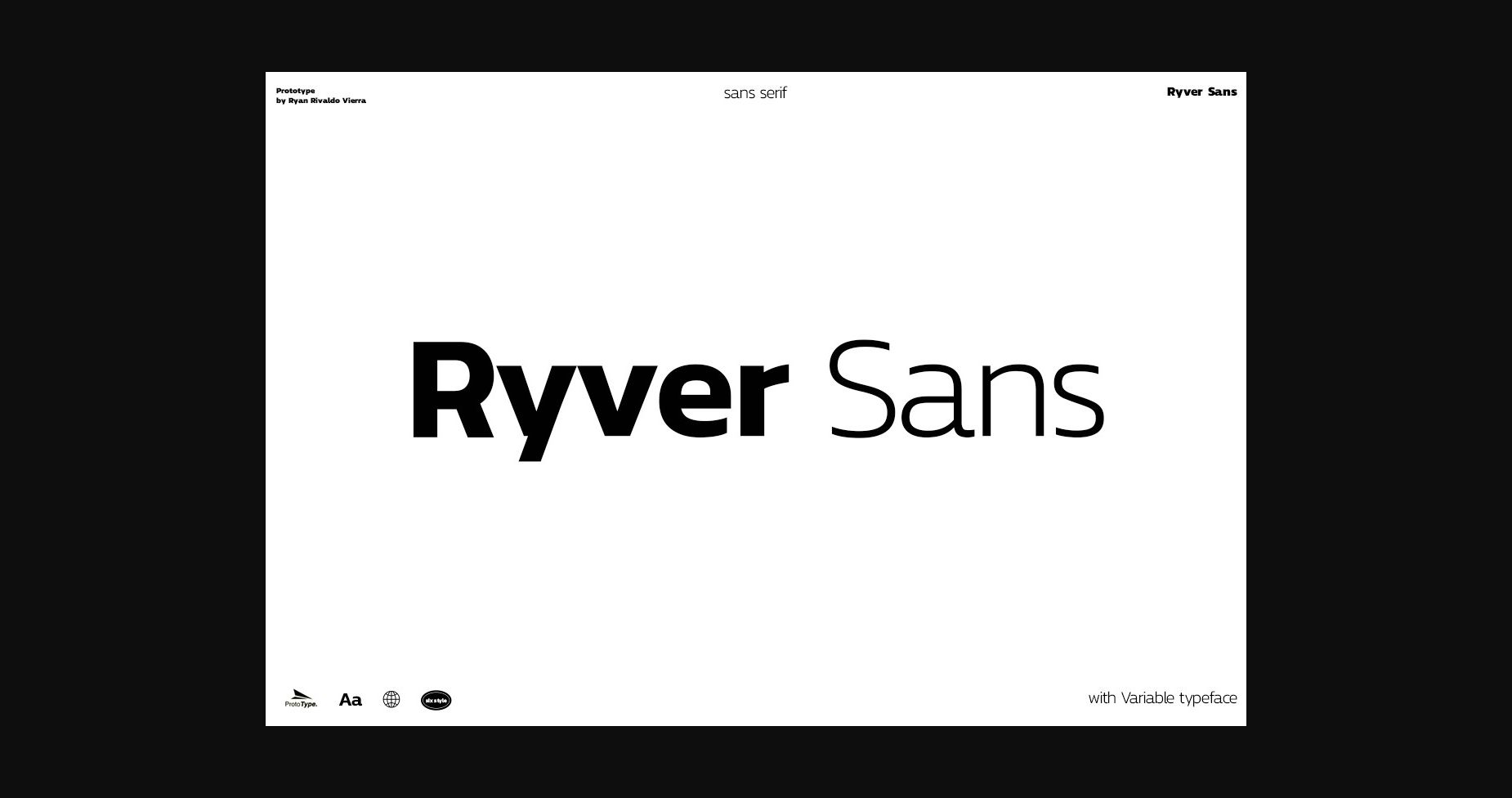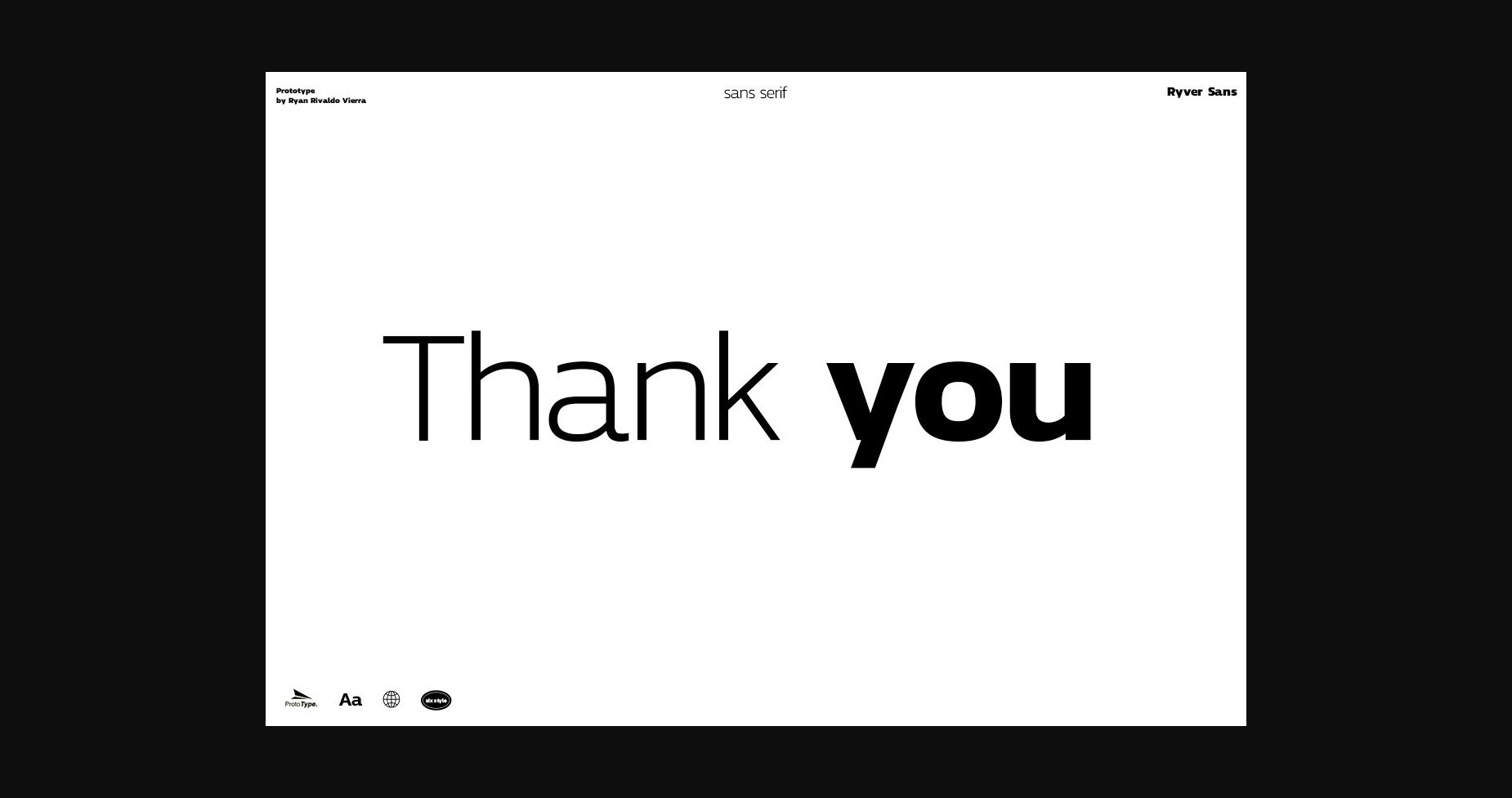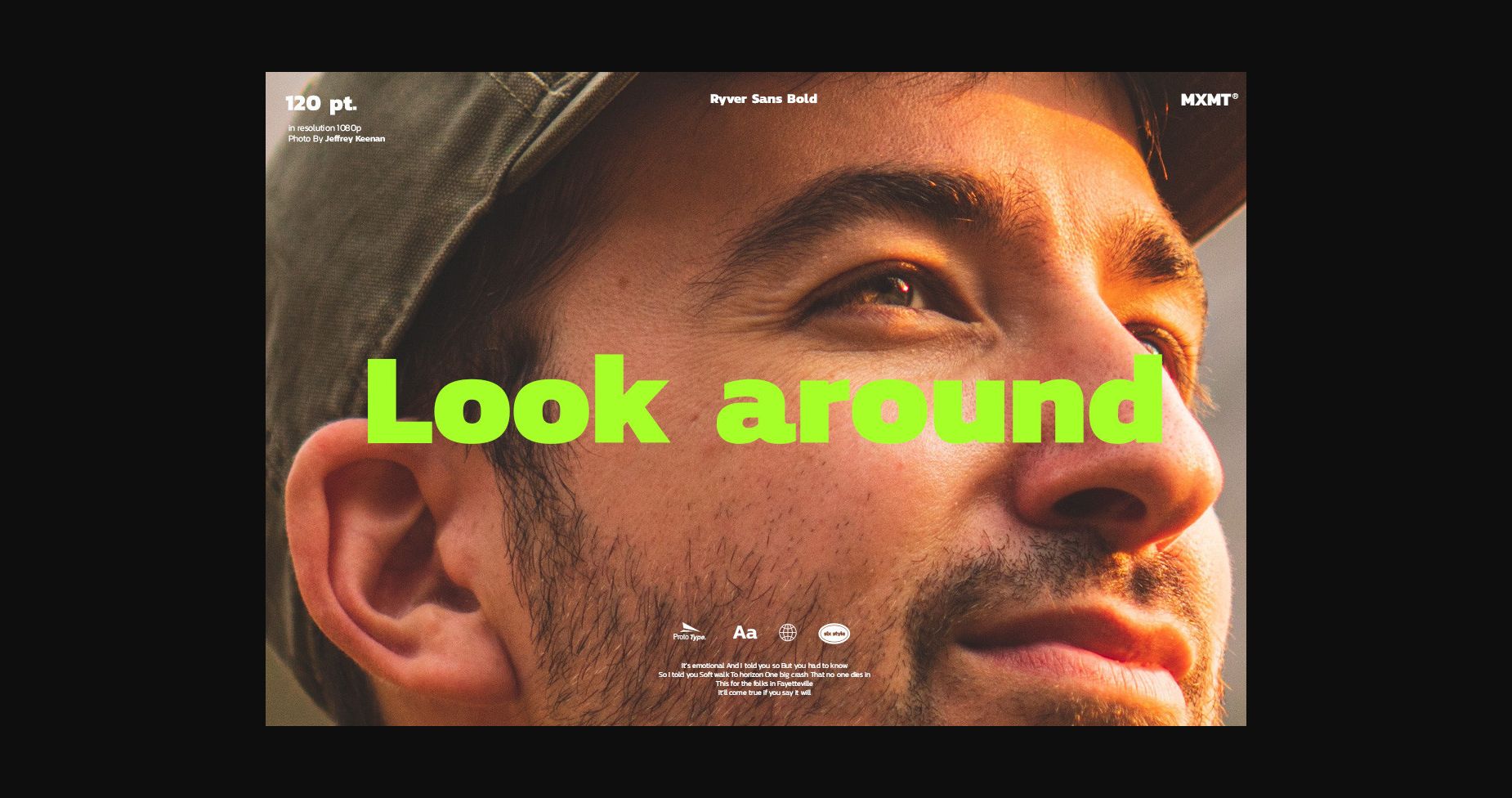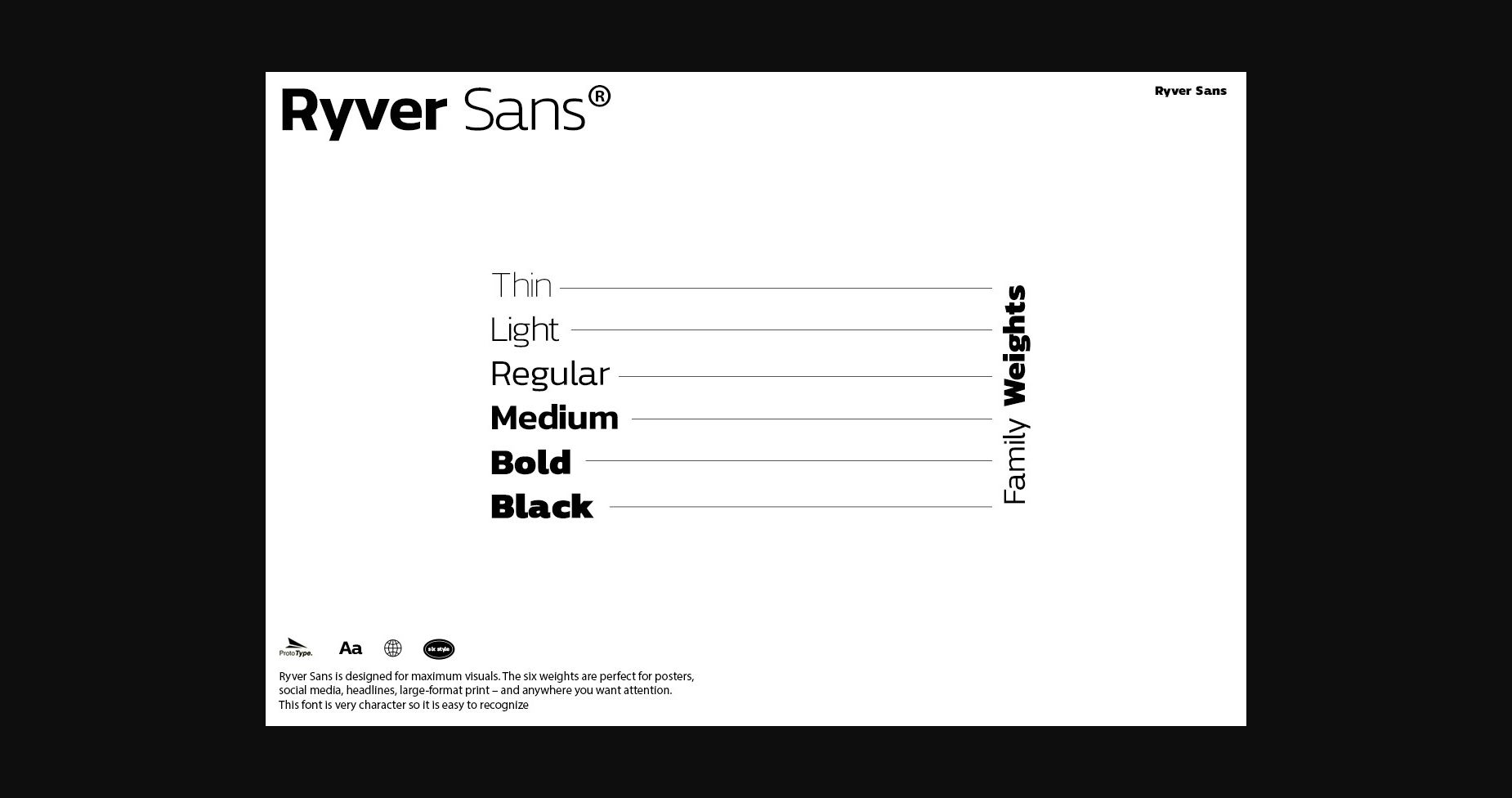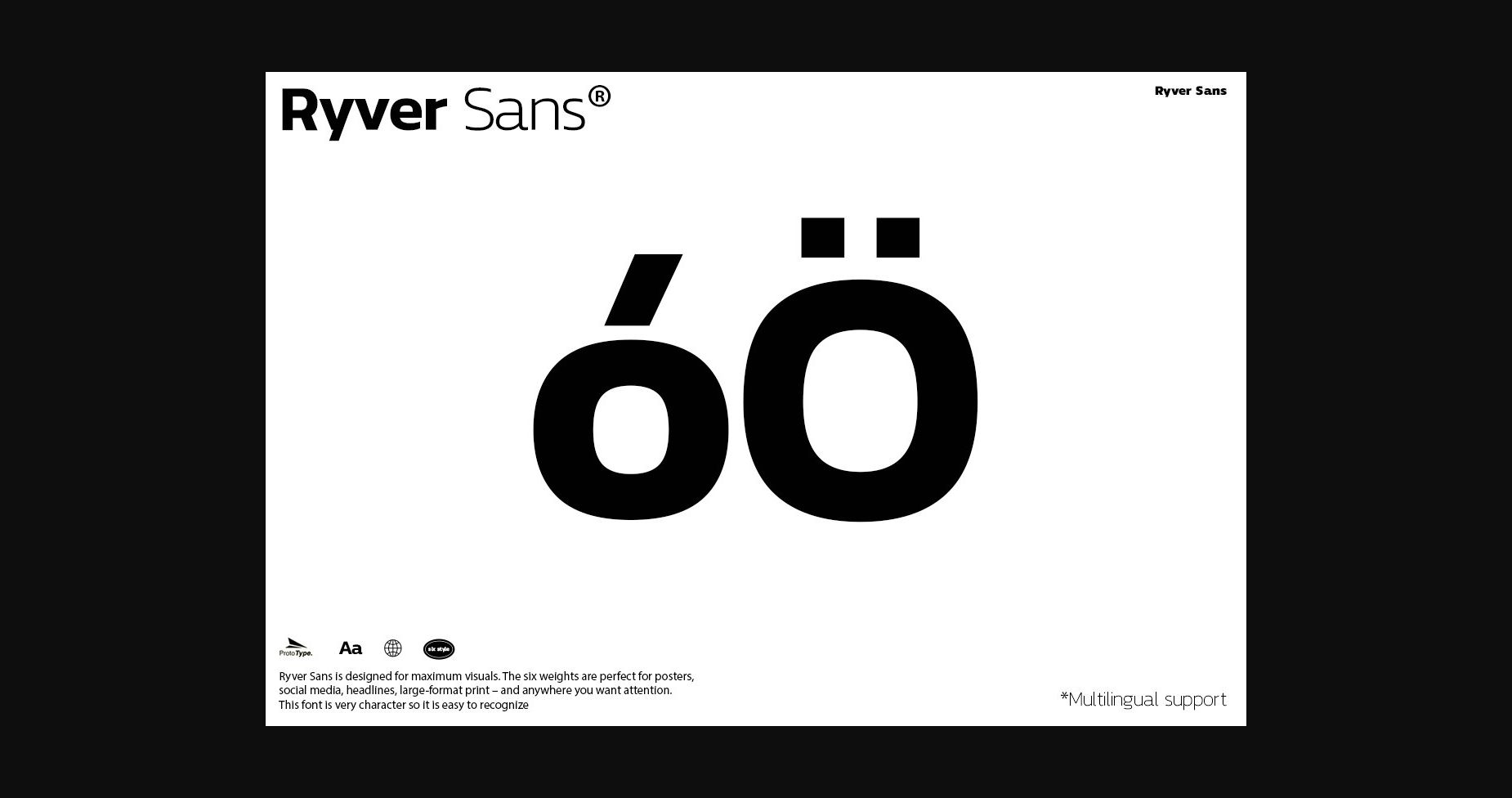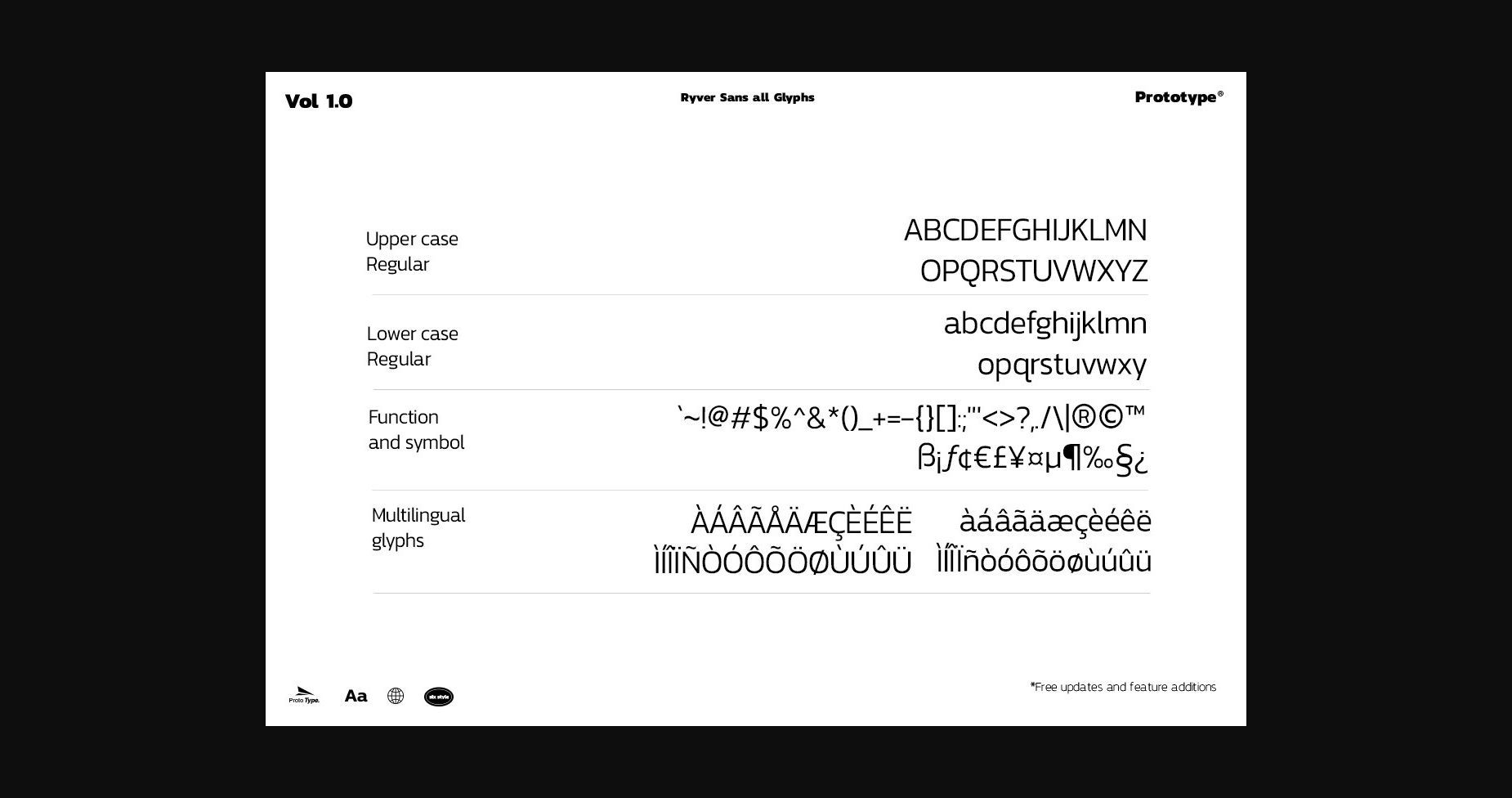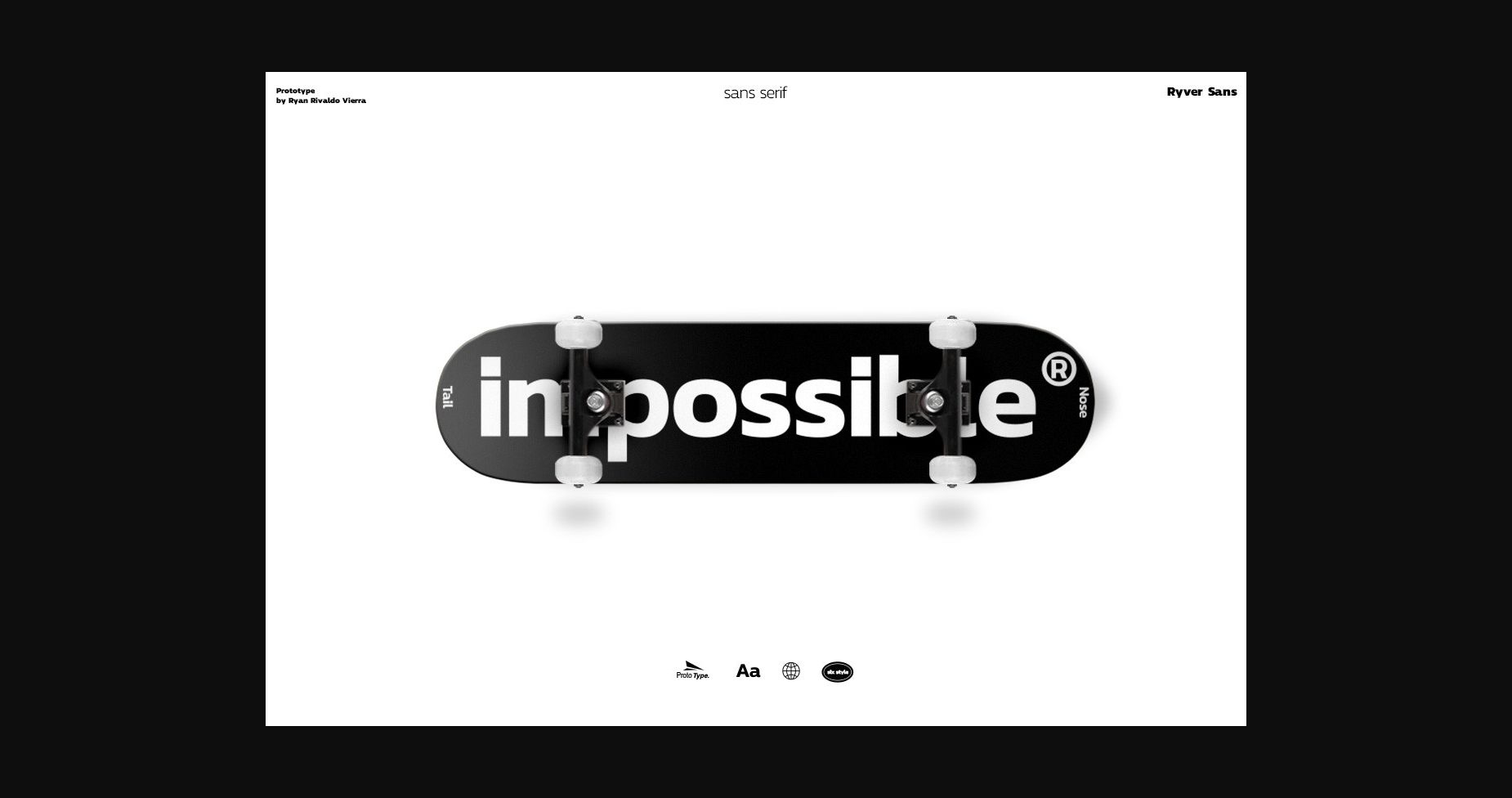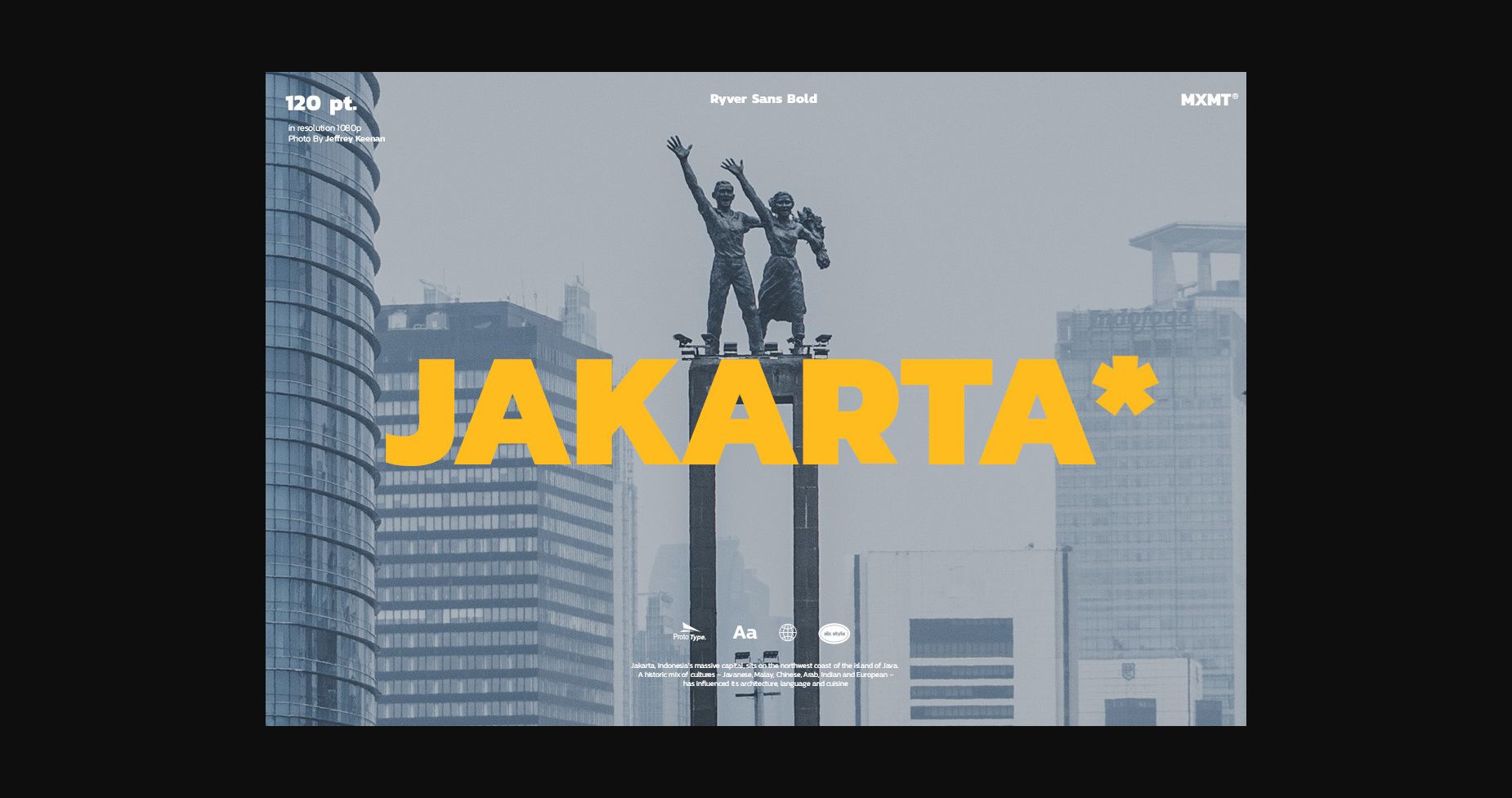
Ryver Sans is a modern, casual and cool looking sans serif font. It is perfect for any branding project such as logos, t-shirt printing, creative products, or pretty much anything that could benefit from a futuristic vibe.